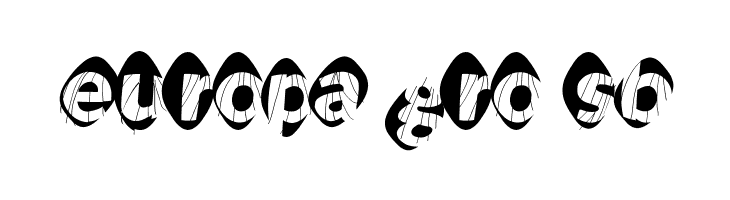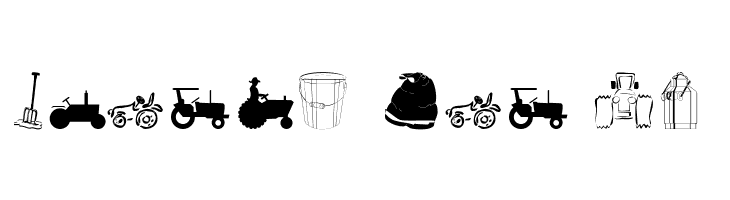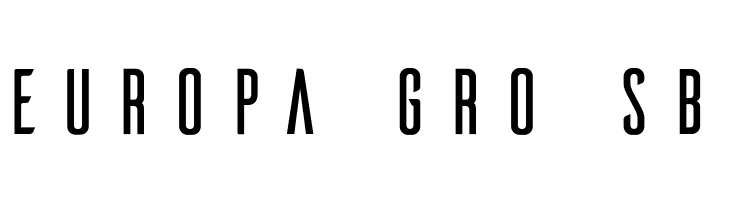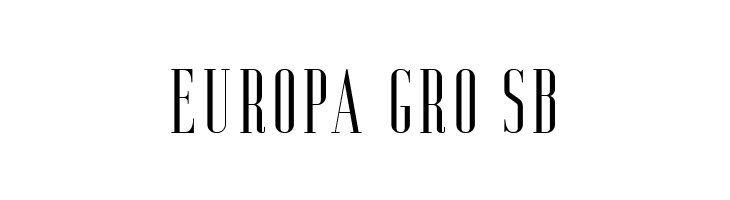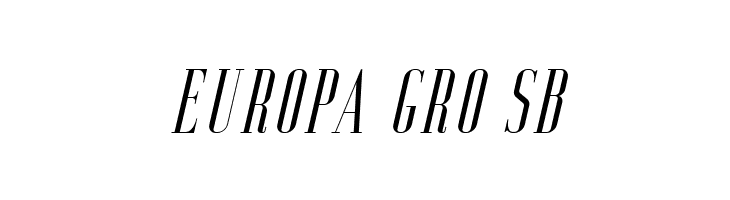
• Agnostic Mirossa FREE
A playful, bold font with rounded edges and a hand-drawn aesthetic.
• AgroFont
A collection of detailed agricultural-themed icons and symbols.
• Aguero Serif Free Italic
An elegant serif typeface with a refined italic style and pronounced serifs.
• Aguero Serif Free Regular
A refined serif font with tall, narrow letterforms and high contrast strokes.
• Ahellya
A classic serif font with elegant strokes and medium contrast.
• Ahellya Italic
An elegant italic font with smooth curves and balanced contrast.
• AidaOopsXtra
A bold, geometric font with abstract patterns and high contrast.
• AidaSerifaShadow
A serif font with italic styling and shadow effect, offering elegance and readability.
• Aikasiirtyma
A bold, graffiti-inspired font with dynamic, angular characters.
• Ailerons
A modern, geometric font with a tall and narrow design.